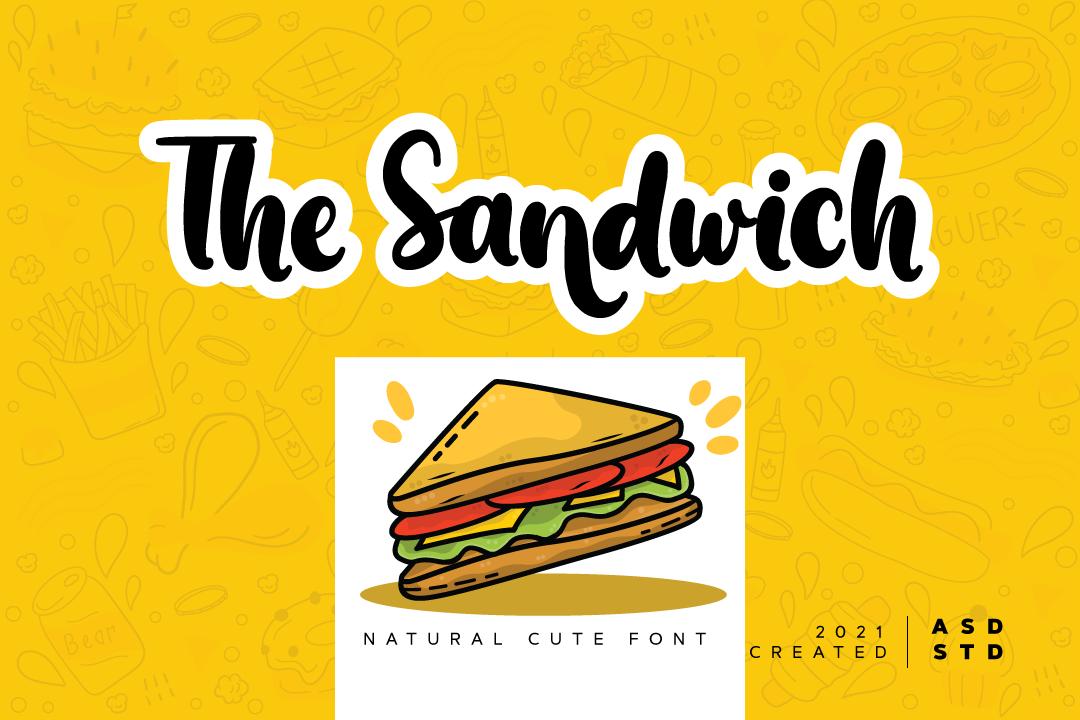
The Sandwich Font Description
The Sandwich is a modern script font that is readable, bold and stylish. It is defined by smooth curves and is perfect for fashion branding or editorial designs. Add it confidently to your projects, and you will love the results.